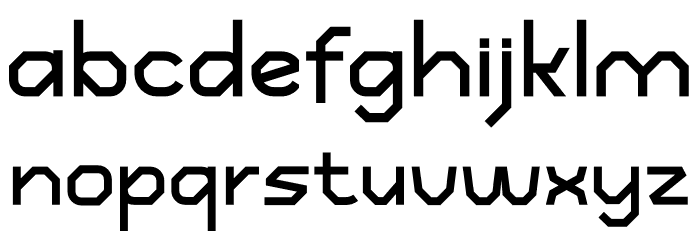
Gasted Thinpersonal Font
Gasted Thinpersonal Description
This font features a geometric and angular design, characterized by its sharp edges and clean lines. The uppercase and lowercase letters maintain a consistent structure, with a modern and futuristic appeal. The characters are evenly spaced, providing a balanced and uniform appearance. The font's unique style makes it suitable for projects that require a bold and distinctive look, such as branding, posters, and digital media. Its clear legibility and striking design elements make it stand out in various applications.